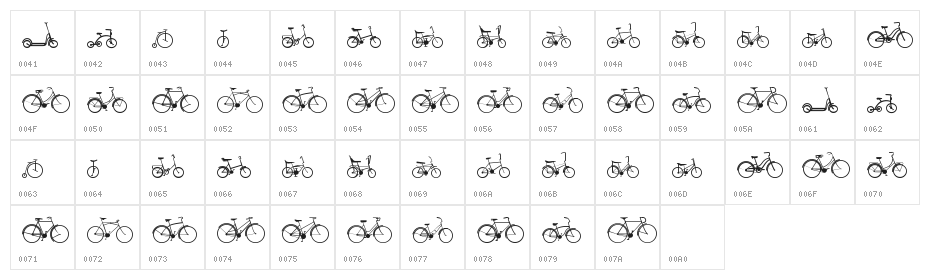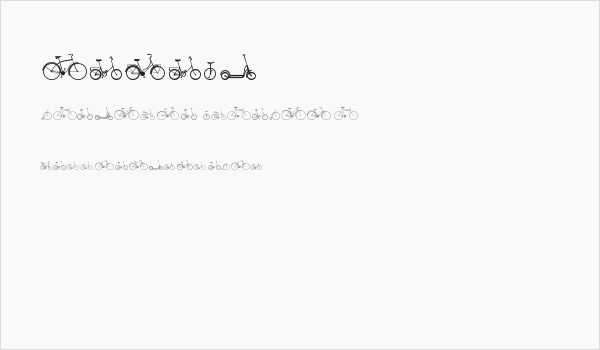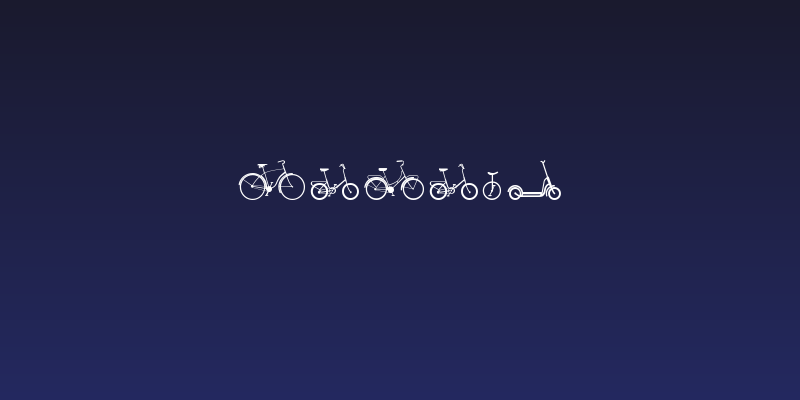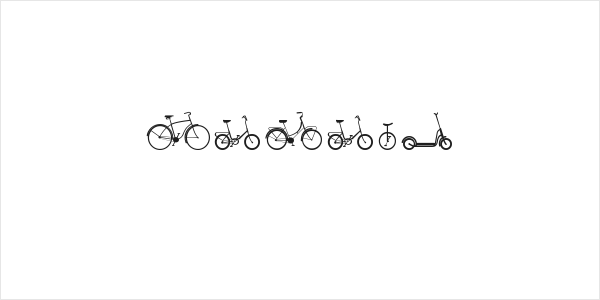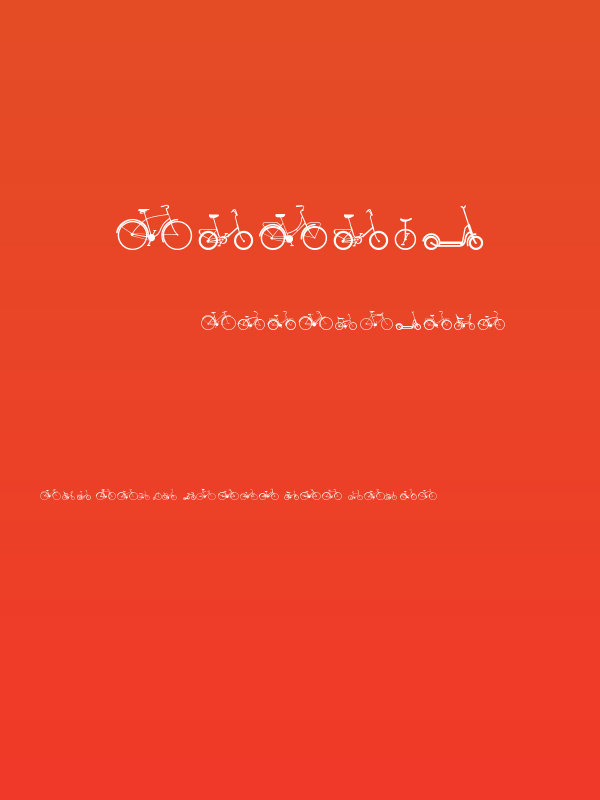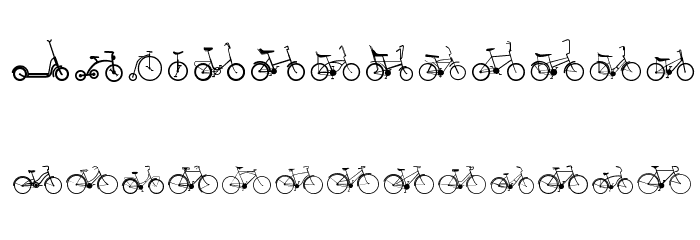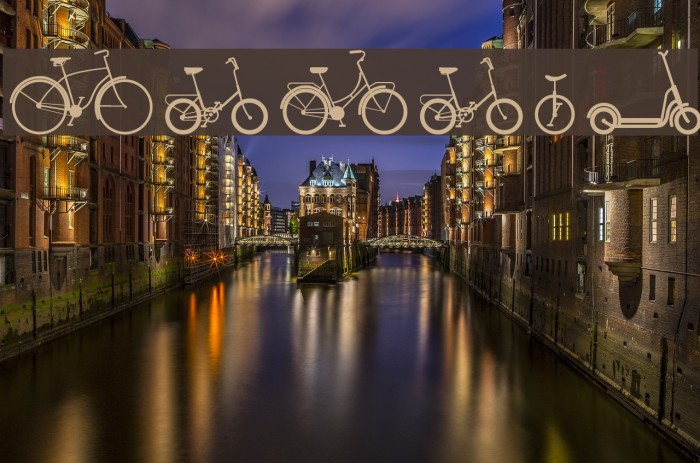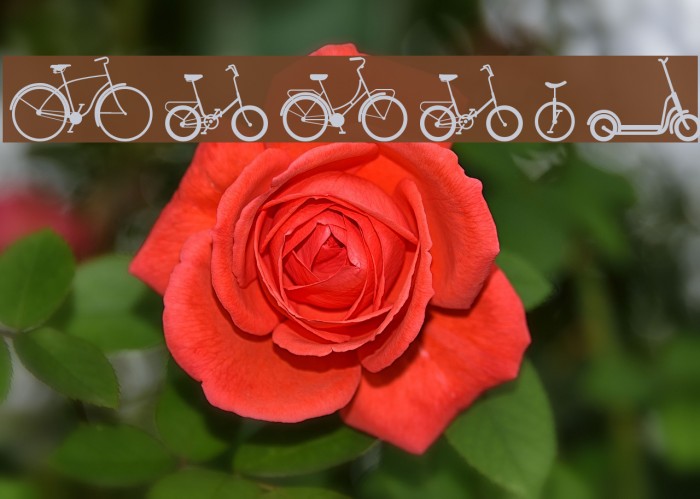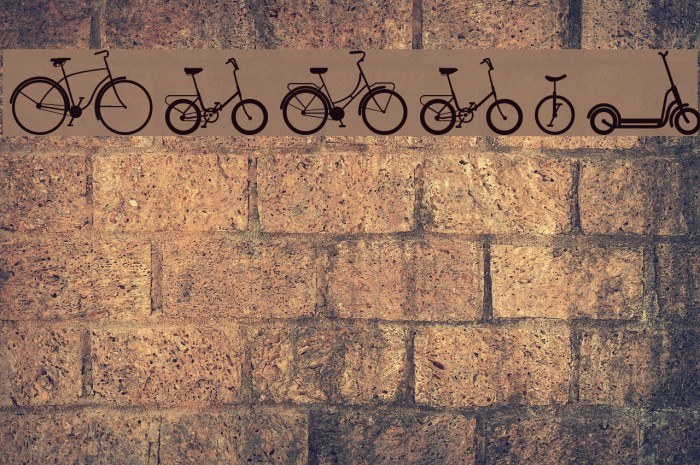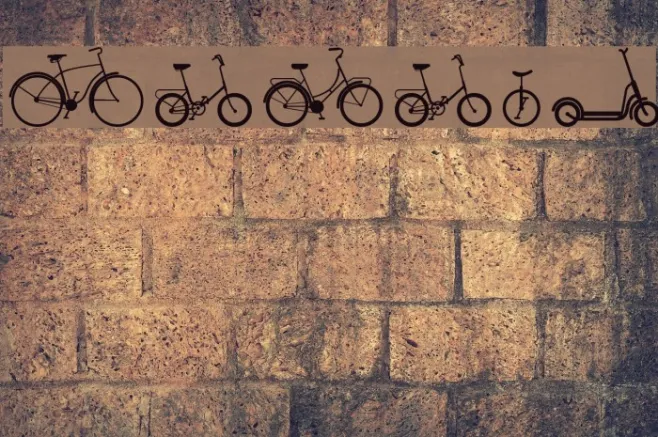
Sepeda Font
Sepeda Description
A playful, decorative font where each character is represented by a unique bicycle or scooter illustration, creating a whimsical and thematic alphabet and numeral set.
| Overall Style | Decorative, Whimsical, Thematic |
| Use Case | Logos, Headlines, Posters, Themed graphics |
| Proposed Projects | Children’s books, cycling event posters, playful branding, themed invitations, educational materials. |